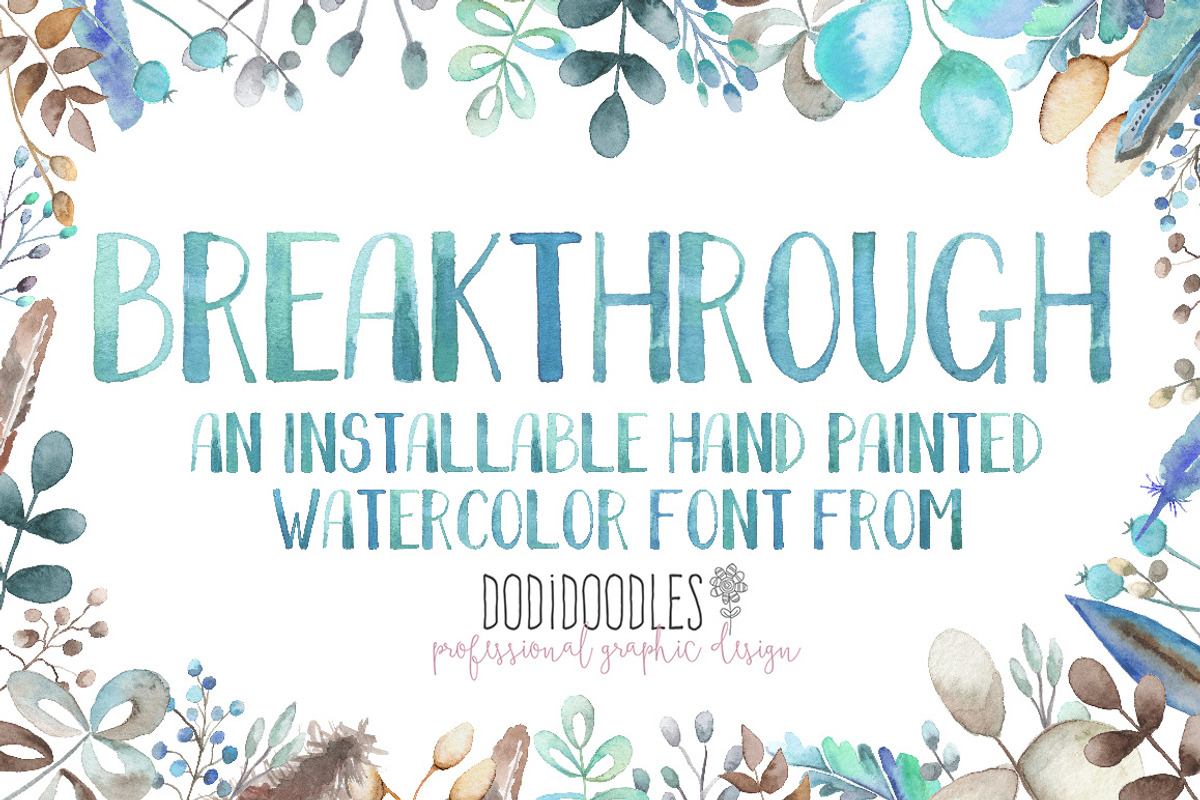
Sale Breakthrough Watercolor Font Free Download is a beautiful, artistic typeface designed to bring a hand-painted, watercolor feel to your designs. With its fluid brush strokes and unique, organic shapes, this font is perfect for branding, invitations, social media posts, greeting cards, and any design project that calls for a creative, artistic touch.
The watercolor effect adds an expressive, artistic quality to your typography, making it ideal for projects that require a relaxed, handcrafted look. Whether you’re designing for a boutique, a creative event, or a whimsical brand, this font brings charm and personality to your work.